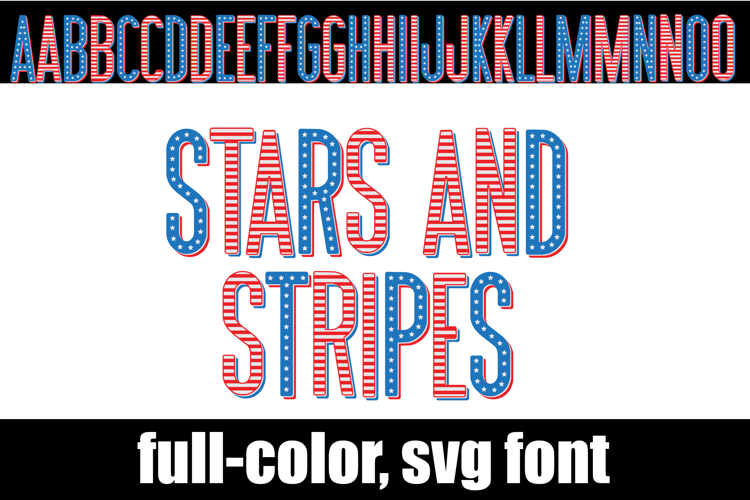
Stars & Stripes Patriotic Color Font
Stars & Stripes is a bold, clean display font where every letter carries its own little flag: a field of stars across the top and crisp horizontal stripes below. Each stripe and each row of stars is built on one shared grid, so the pattern lines up perfectly across whole words and headlines.
It comes as two fonts:
• Stars & Stripes Color: a ready-made red, white & blue color font with red stripes and navy stars, plus a second palette with white stars for dark backgrounds.
• Stars & Stripes (solid): the same design in a single color, so you can use any color you like, in any app.
• Uppercase A–Z (lowercase keys type the capitals)
• Numbers, punctuation and currency symbols ($ € £ ¥ ¢)
• Accented letters for Western European languages
• Bonus star symbol ★
• Professionally kerned for even spacing
• Accents made of tiny stars to match the design